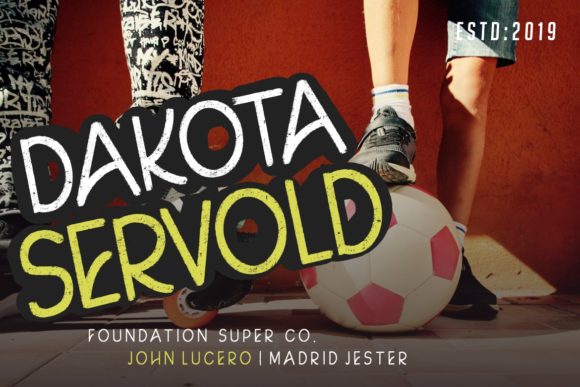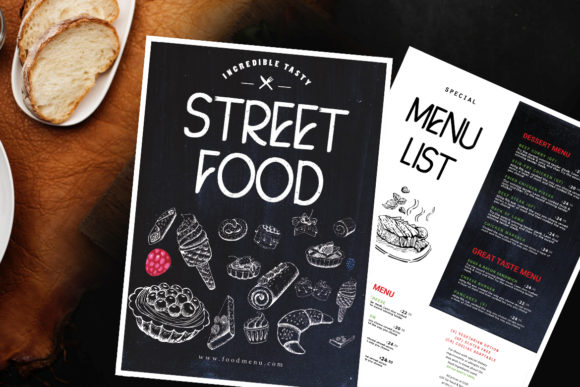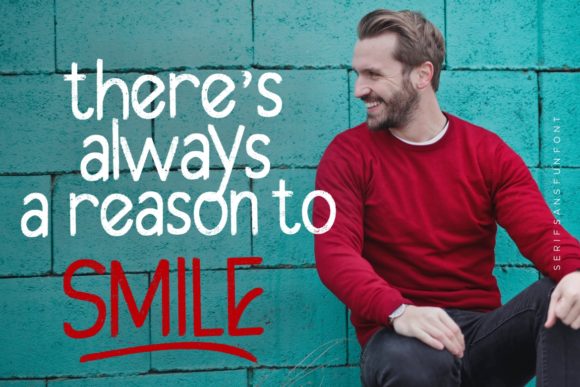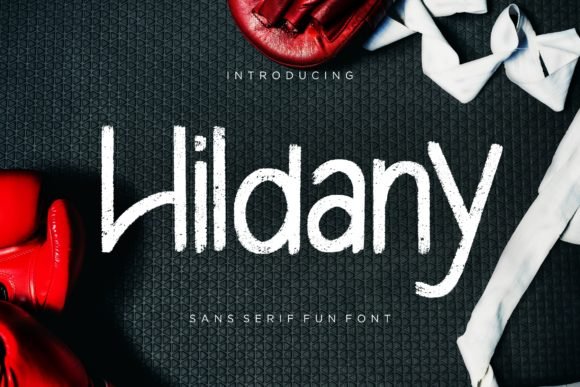
Introduction to Hildany Font
Against all odds, Hildany is a cheerful and fun sans serif font that combines legibility and charm into one fierce typeface.
Against all odds, Hildany is a cheerful and fun sans serif font that combines legibility and charm into one fierce typeface!
Key Features of Hildany Font